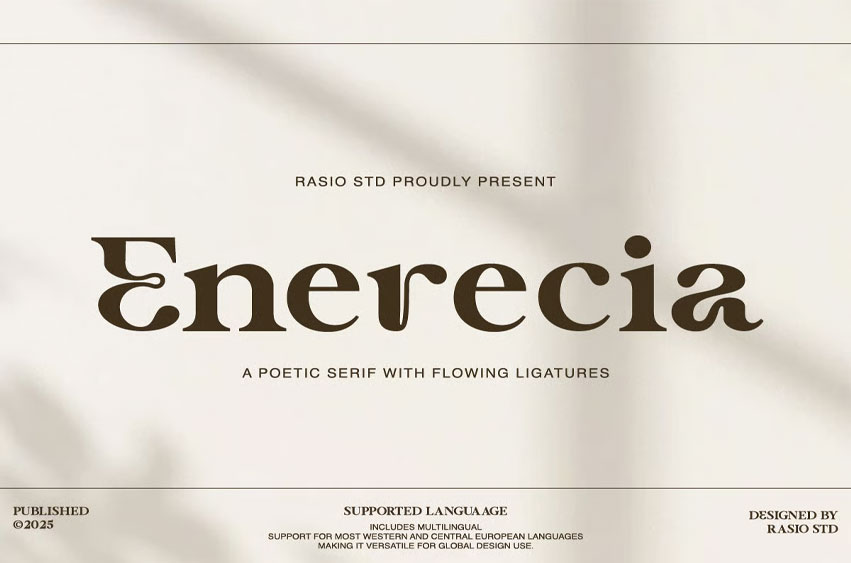
Enerencia Font
Enerencia Font is a poetic serif font that embodies modern sophistication with a touch of classic artistry. Its elegant ligatures, high contrast strokes, and sculptural curves create a timeless visual flow suited for editorial layouts, branding, fashion design, and refined packaging. The font balances geometric precision with organic rhythm, evoking harmony between strength and grace. Perfect for projects that seek both artistic expression and professional refinement, Enerecia delivers a luxurious typographic experience that feels effortlessly distinctive.
Relevance and Use Cases are perfect for luxury branding, editorial layouts, high-end packaging, art magazines, fashion campaigns, and refined invitations. Enerecia combines precision and emotion, making it an ideal statement font for projects that balance creativity with timeless elegance.